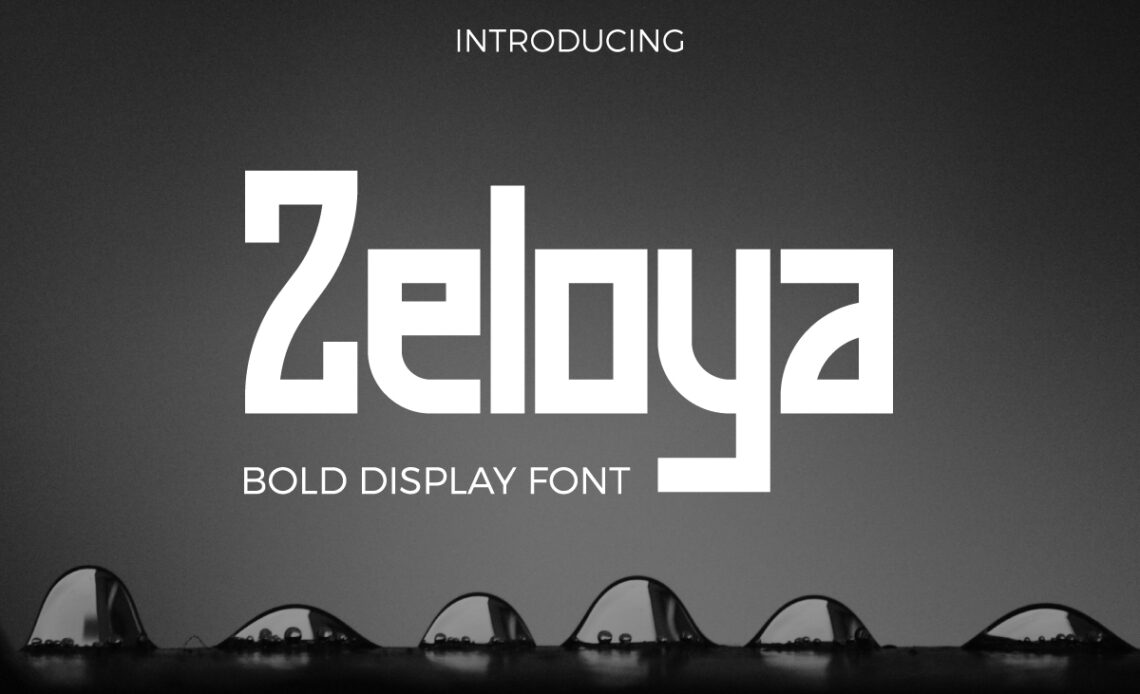
Embark on a typographic adventure with Zeloya Font, a captivating display font family meticulously crafted by Debut Studio. This luxurious, bold, and clean typeface is a visual symphony, designed to orchestrate elegance and sophistication into your creative projects.
Zeloya's commanding presence effortlessly captivates attention, making it an ideal choice for headlines that demand impact. Its bold strokes exude confidence and authority, ensuring your words leave a lasting impression. Let Zeloya elevate your logos, transforming them into iconic symbols that resonate with your brand's essence.
Unleash the power of Zeloya in your poster designs, where its bold lines cut through the visual clutter, commanding attention like a magnetic force. Let your words dance across the canvas, captivating audiences with their boldness and poise.
Immerse yourself in the world of book covers, where Zeloya's clean lines and elegant curves weave a tapestry of intrigue. Its sophisticated charm invites readers to delve into the depths of your literary creations, promising an immersive journey from the very first glance.
With Zeloya, the possibilities are boundless. Its versatility extends to a wide range of creative projects, from branding materials to social media graphics. Let your imagination soar as you harness the power of this extraordinary font to craft designs that leave an indelible mark.
Zeloya's comprehensive character set ensures seamless integration into your projects. Uppercase letters exude strength and stability, while lowercase characters infuse your text with a touch of grace and fluidity. Numbers and punctuations complete the repertoire, providing the essential building blocks for your creative expressions.
Elevate your designs to new heights with Zeloya Font, a typographic masterpiece that blends luxury and boldness with effortless grace. Let your creativity flourish as you embark on a journey of visual storytelling, leaving a lasting impression on your audience.